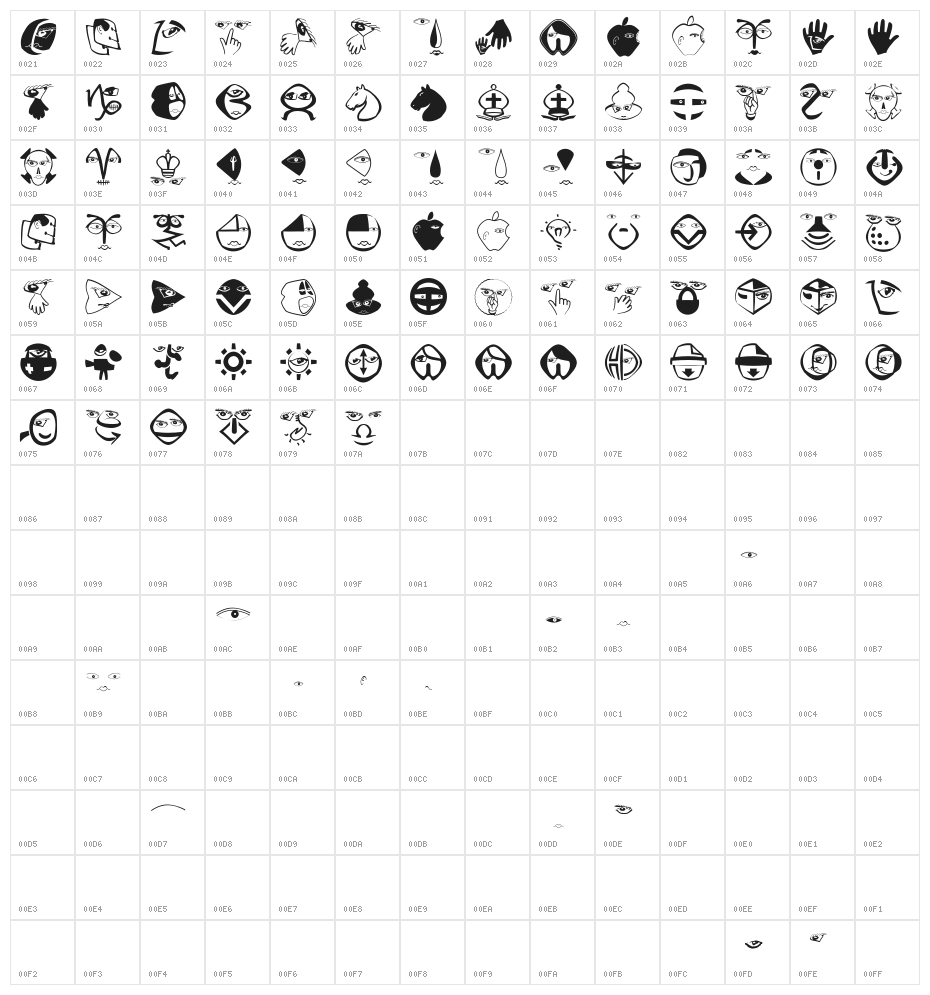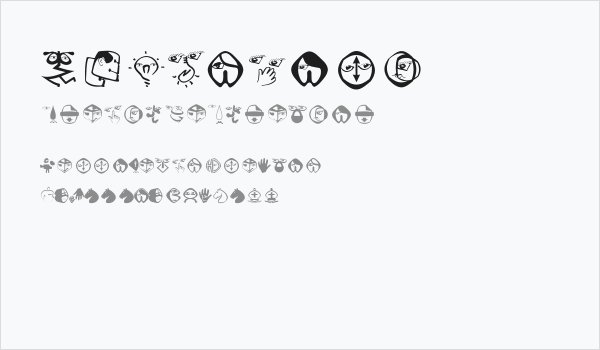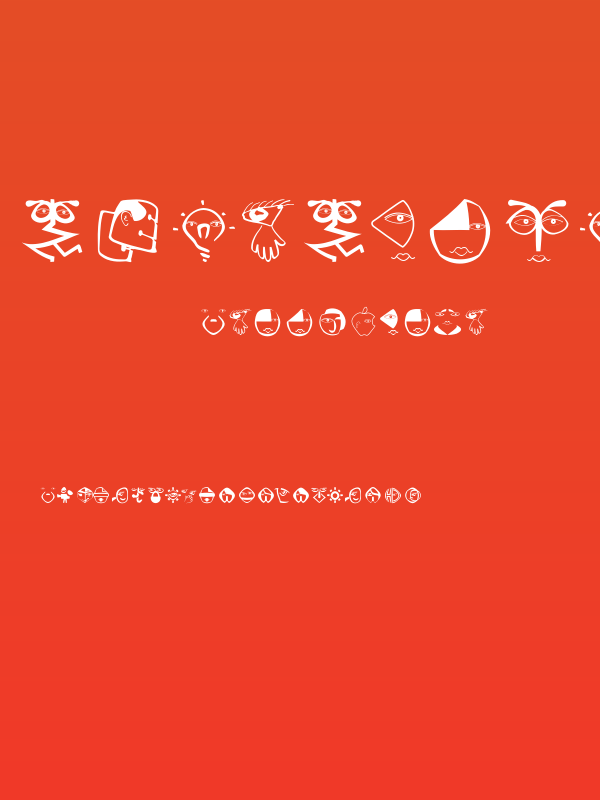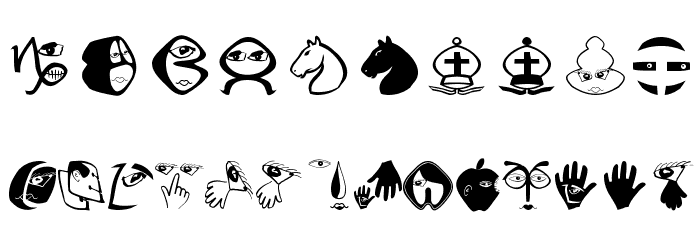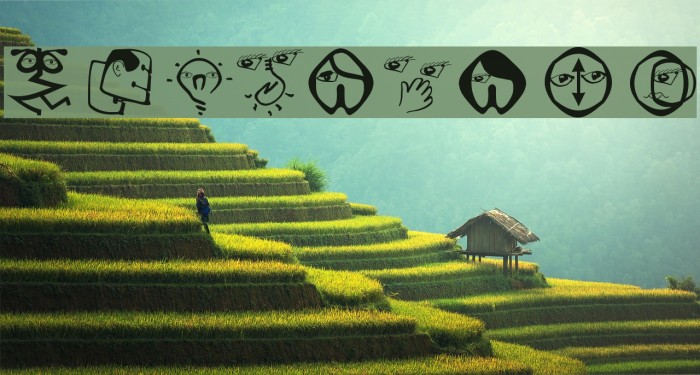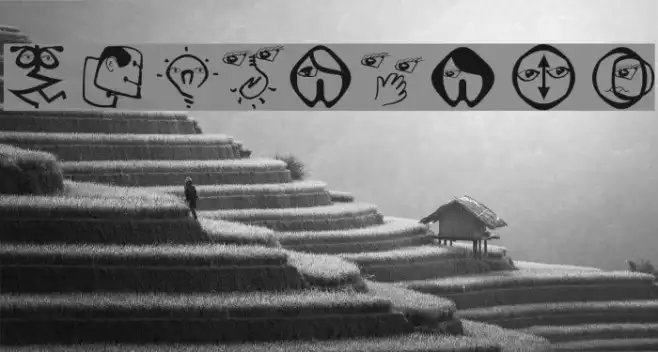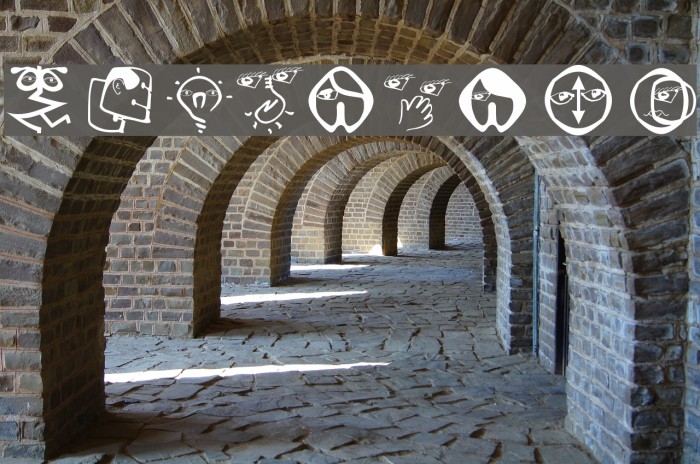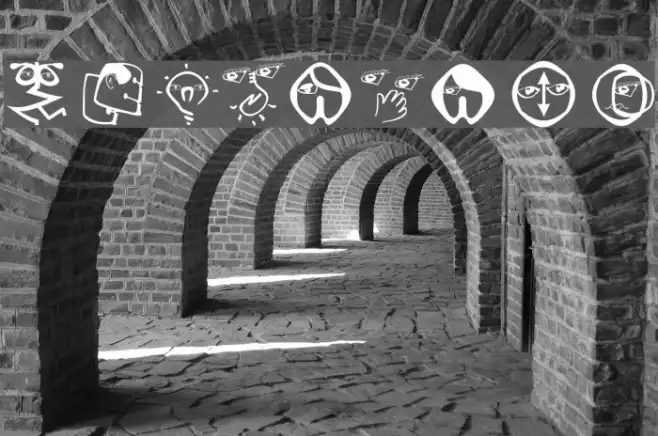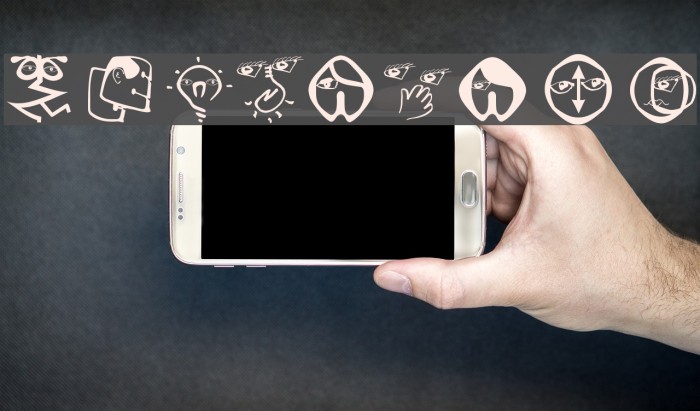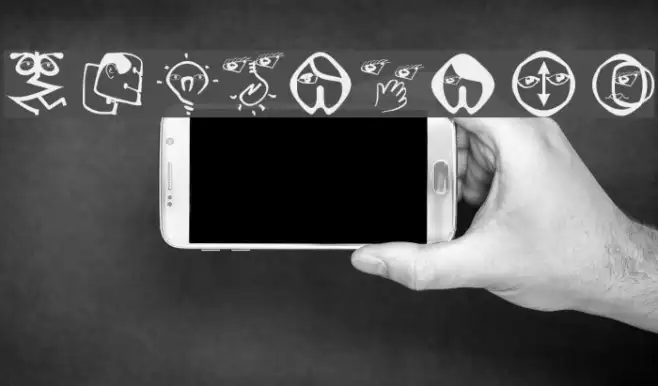
MKSymbols Font
MKSymbols Description
This collection features a series of unique, abstract symbols that blend human facial elements with geometric shapes and whimsical designs. Each character is distinct, incorporating elements like eyes, noses, and mouths into creative forms that resemble faces, animals, and objects. The style is playful and artistic, with a hand-drawn quality that adds a personal touch. The symbols vary in complexity, from simple line drawings to more intricate compositions, making them versatile for various design applications.
| Use Case | Logos, Artistic projects, Merchandise |
| Proposed Projects | Ideal for creative projects such as logo design, branding, artistic posters, and unique merchandise. These symbols can also be used in digital media, animations, and as decorative elements in print materials. |